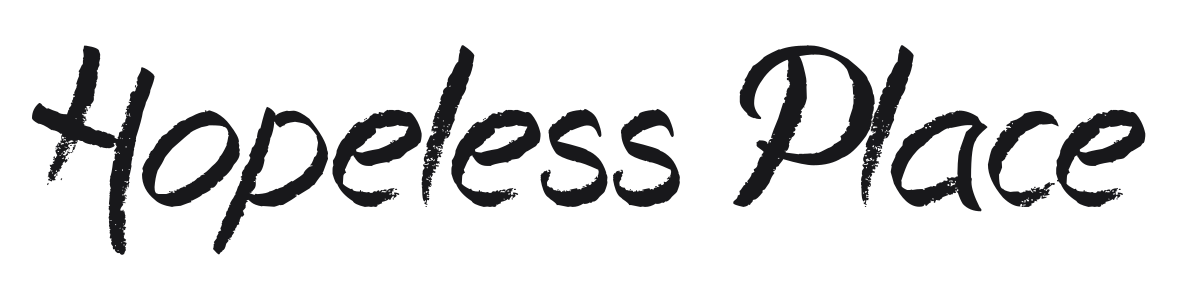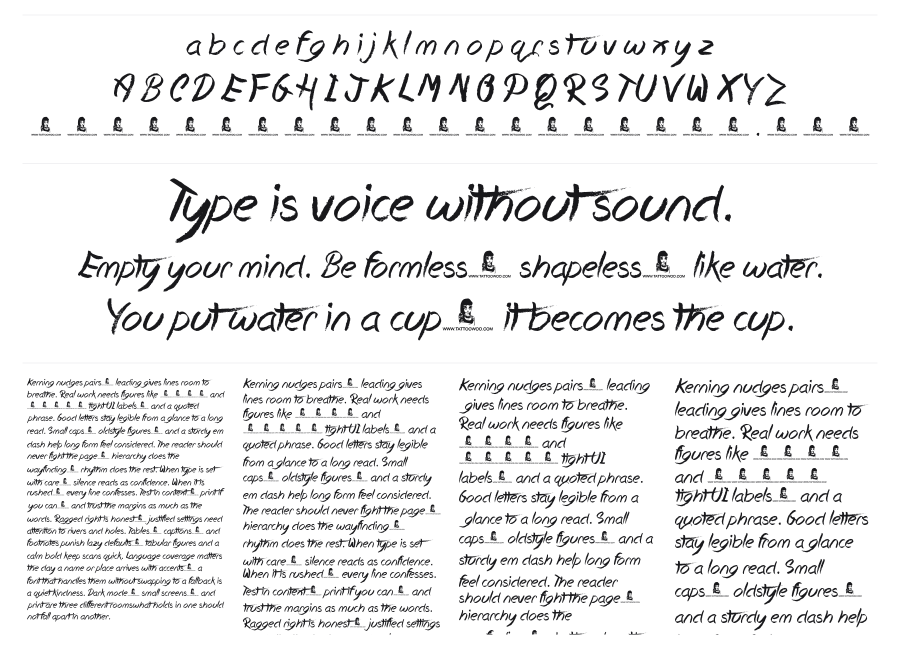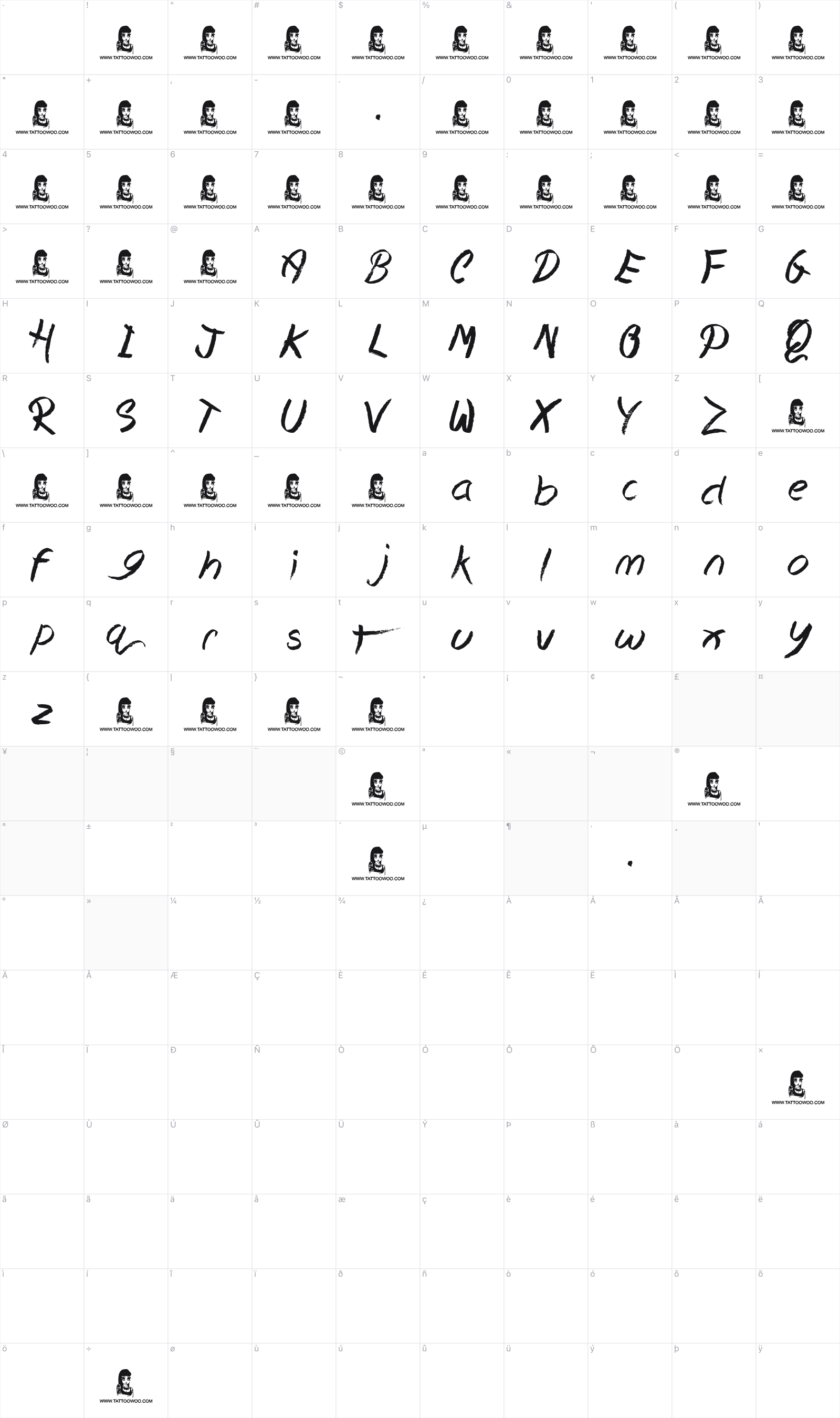
Hopeless Place
Hopeless Place is a rough brush script by Jonathan Harris with a gritty, hand-painted character that feels like ink dragged fast across the page. The sharp italic angle and frayed stroke edges give it a raw, underground energy rooted in tattoo culture. It reads loud at large sizes and suits anything that needs attitude over elegance.